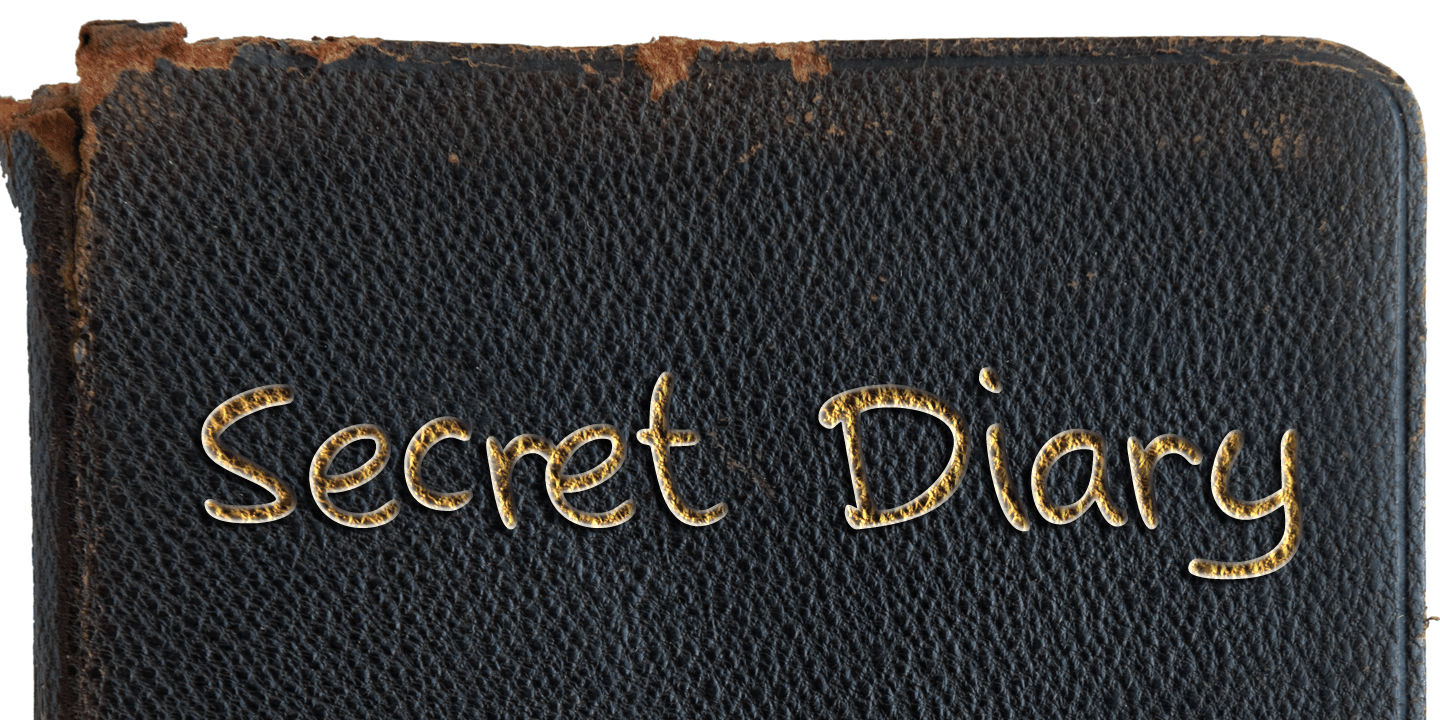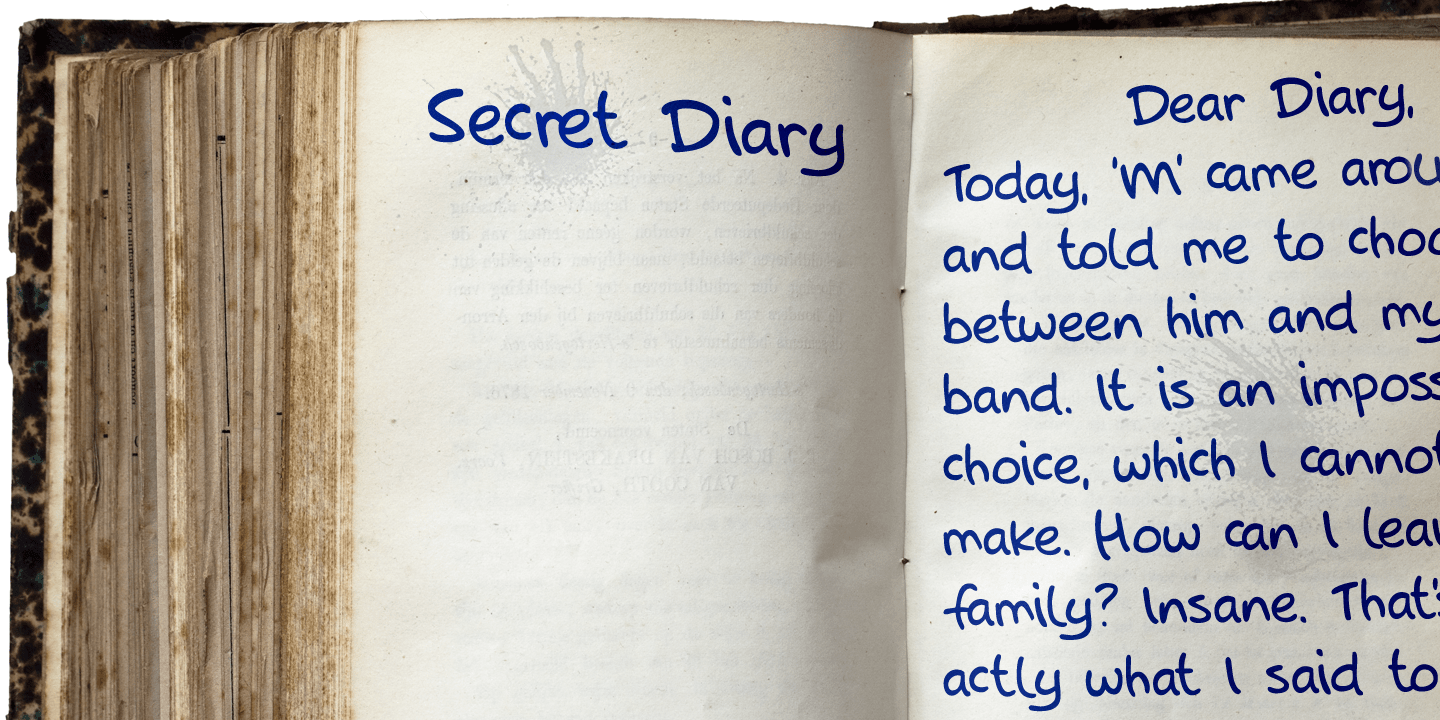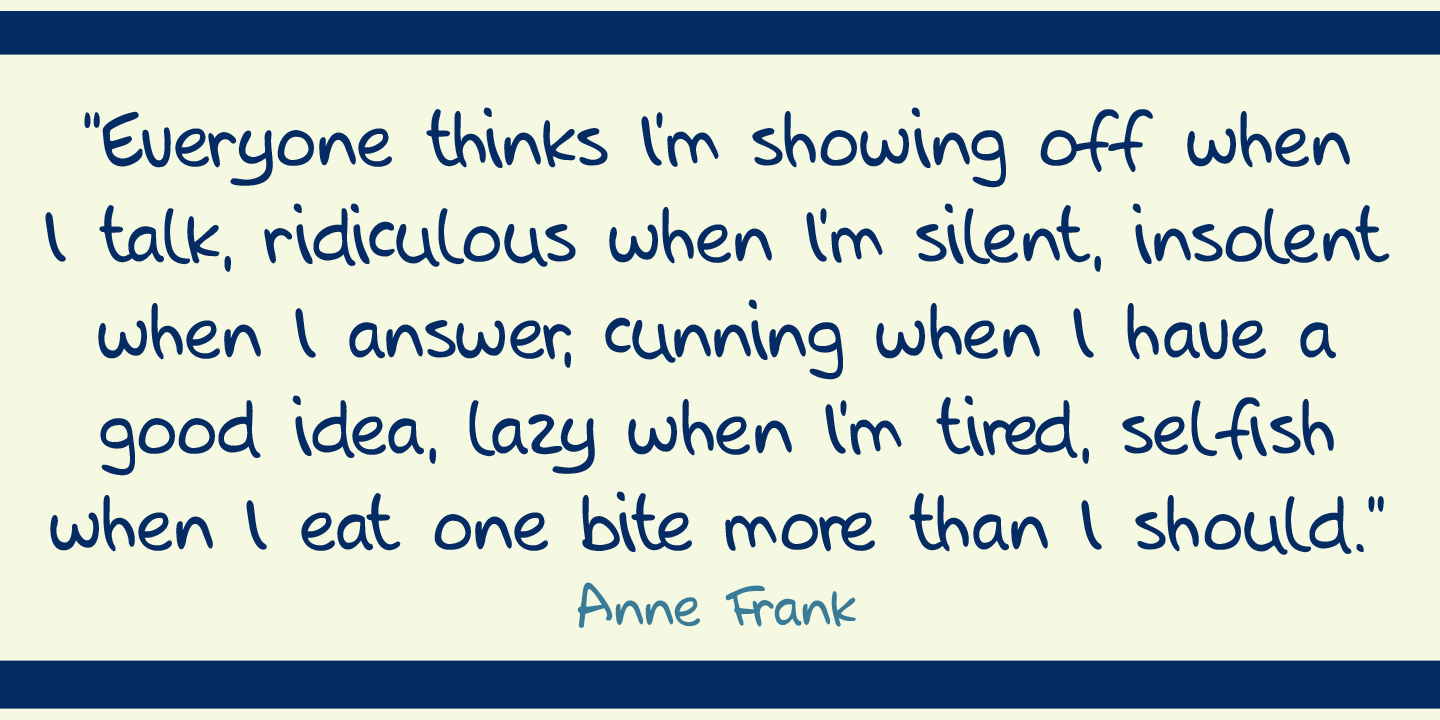
Secret Diary
Secret Diary is a nice bit of uncomplicated handwriting: it is rounded, feminine, legible and above all - natural in appearance. Secret Diary comes with some ligatures and an overdose of diacritics.